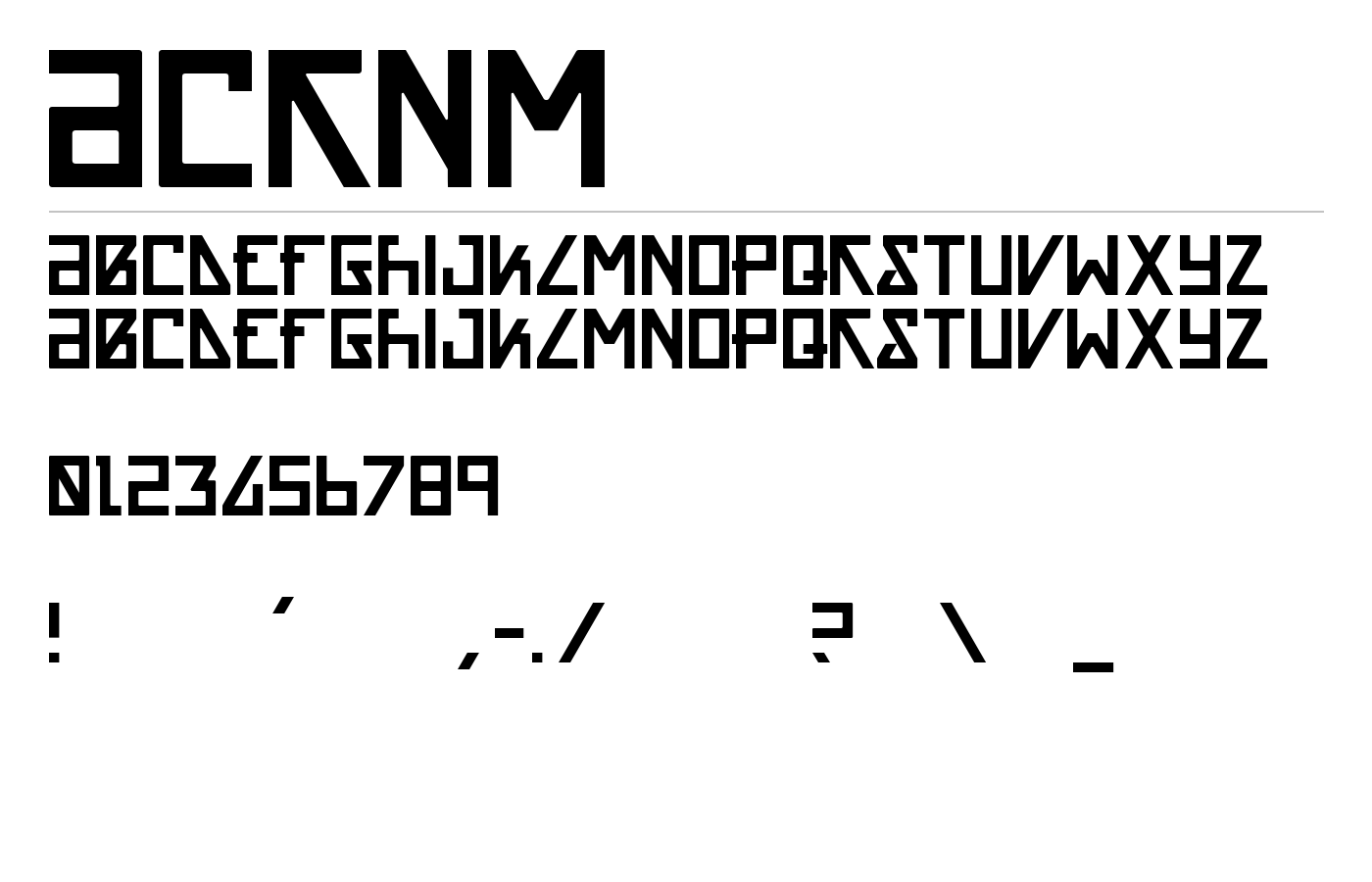
ACRNM is a bold, geometric sans serif font with a strong, angular design that features sharp corners and a condensed structure. Its modern, tech-inspired personality makes it perfect for branding, headlines, and logos that require a futuristic or industrial feel. This font stands out in projects where a striking, unconventional look is desired, such as in fashion, technology, or editorial design.
ACRNM Font
About ACRNM Font
| Font family | ACRNM Font |
| Designer | John Gauthier |